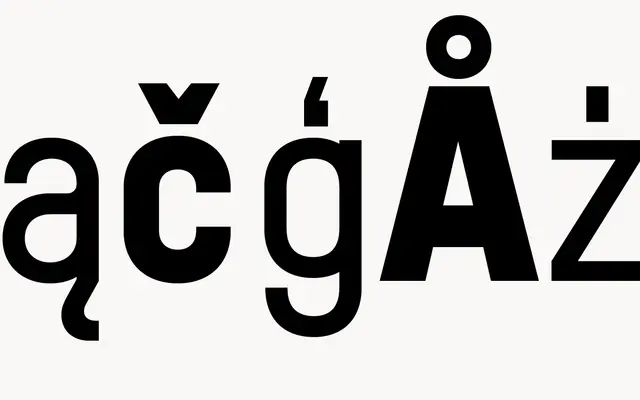
Doumbar
A geometric display sans system from atipo across three subfamilies, including Plate and Stencil cuts, in four weights for signage and identity work.
A geometric display sans by Raul Garcia del Pomar and Ismael Gonzalez at atipo foundry, structured as three subfamilies: the standard Doumbar, Doumbar Plate with engraved inline detail, and Doumbar Stencil. Each subfamily runs across four weights from Regular to Bold, with fractions, superiors and ordinals in the OpenType layer. The system suits signage, identities and editorial display where you want one geometric voice with multiple textural registers.
A geometric display sans built as a system of three subfamilies: Doumbar, Doumbar Plate and Doumbar Stencil. Drawn with strong verticals and circular bowls, useful for identity, signage and editorial display where a constructed feel is wanted.